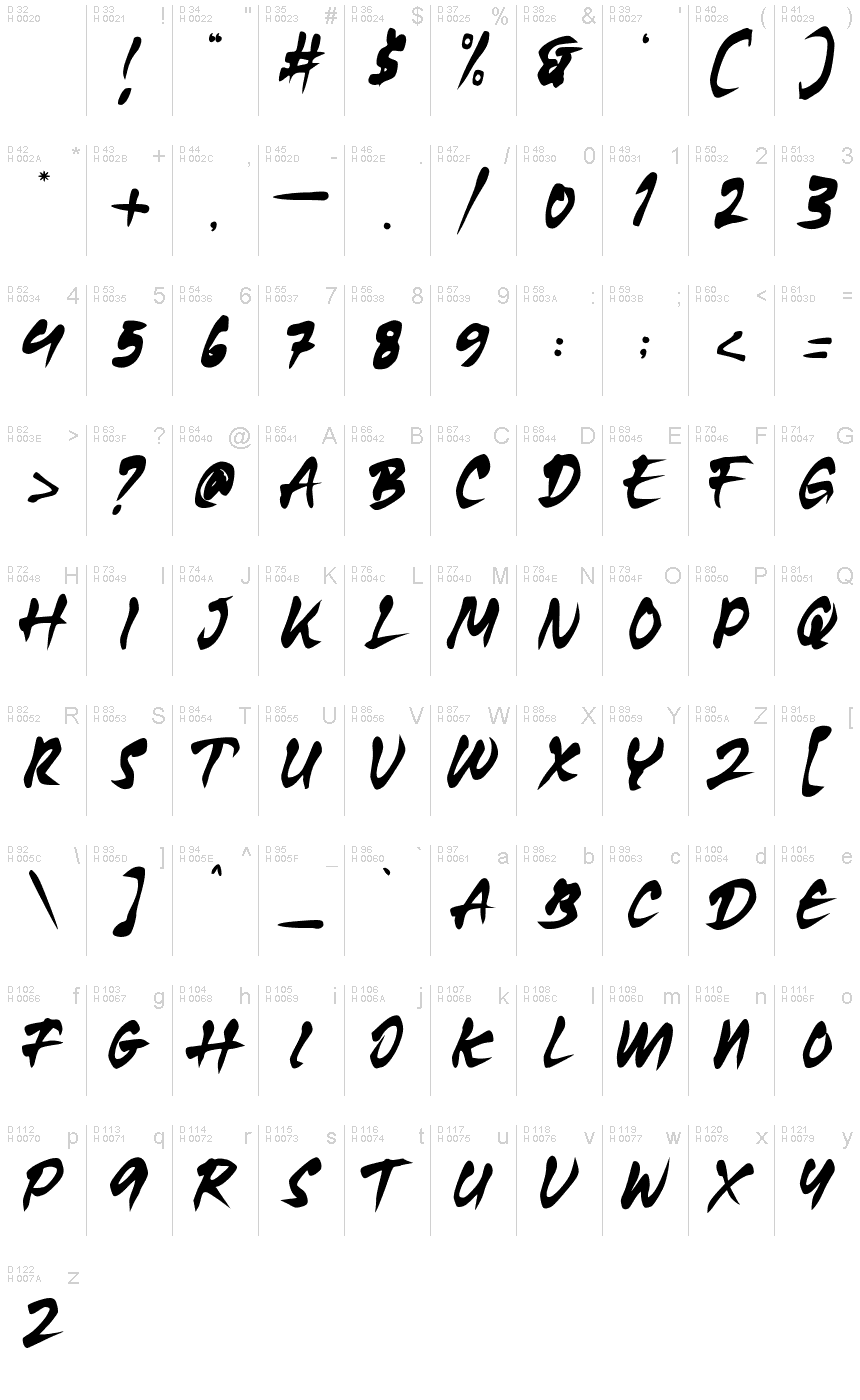
Heroes
Heroes is a bold brush font designed by bandofolstudio.com. With its expressive brush strokes and bold weight, this font adds a touch of strength and bravery to any project. Perfect for creating eye-catching headlines, logos, and posters, Heroes brings a dynamic and adventurous feel to your designs. Whether you're working on an action-packed video game, a thrilling movie poster, or an empowering brand identity, this versatile font is your go-to choice for projects that demand a fearless and impactful typographic treatment. Let Heroes add the heroic touch to your next creative endeavor!